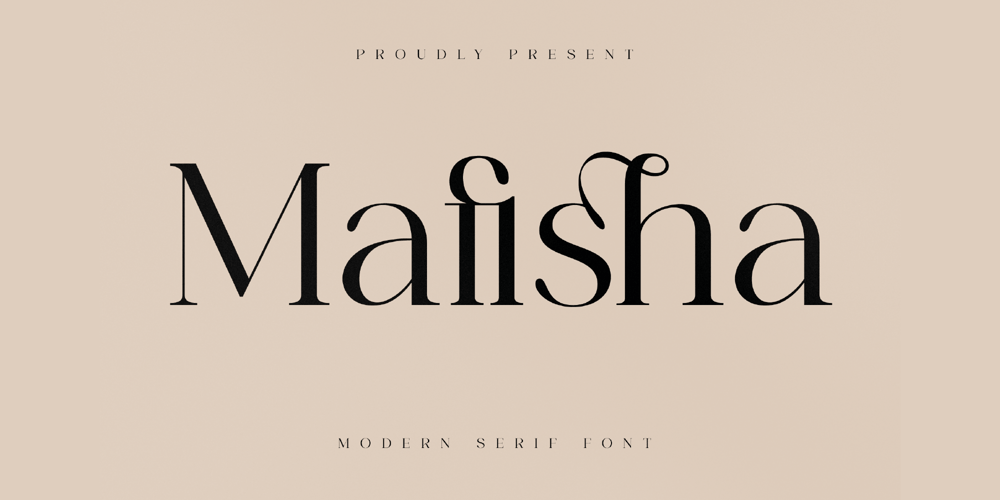
Mafisha Font Family was designed by Heru Utama Putra and published by Letterena Studios. Mafisha contains 2 styles and family package options. Proudly present Mafisha Typeface , created by Storytype,A serif modern and classic typeface that his own unique style & modern look.This typeface is perfect for an elegant & luxury logo, book or movie title design, fashion brand, magazine, clothes, lettering, quotes, and so much more.This font is PUA encoded which means you can access all of the amazing glyphs and ligatures with ease!